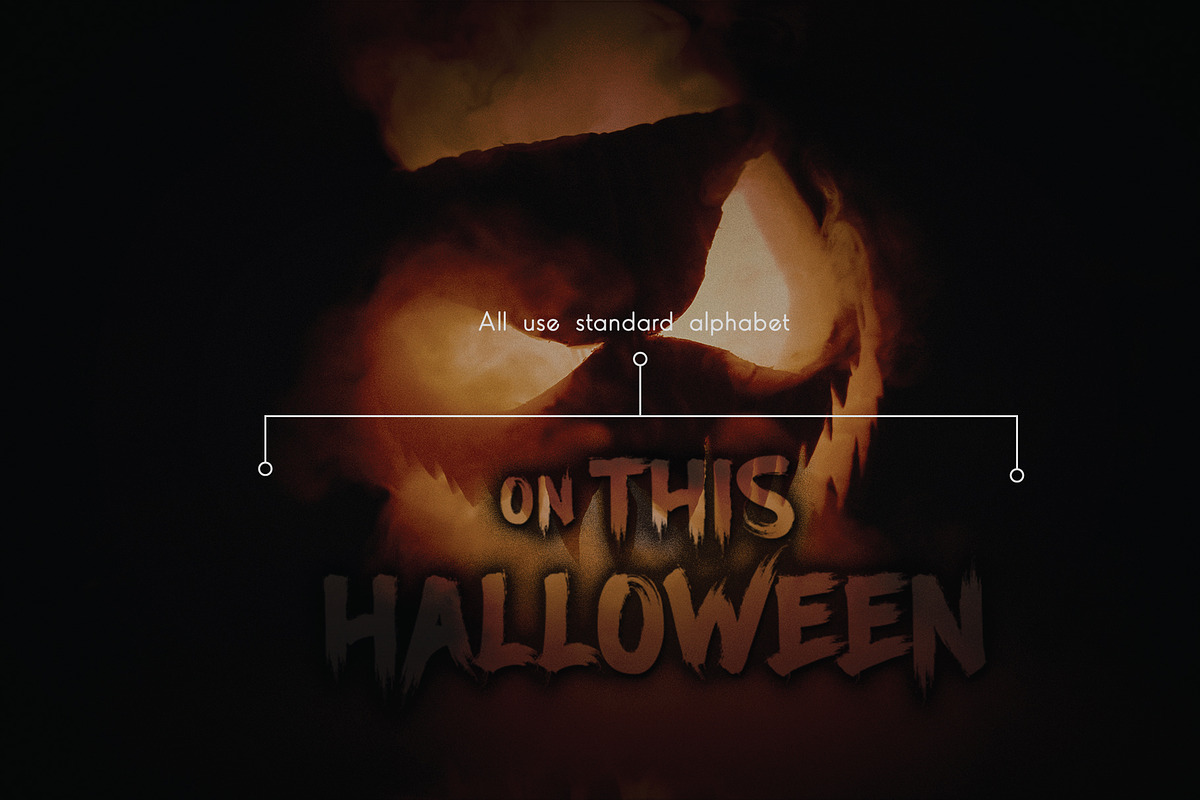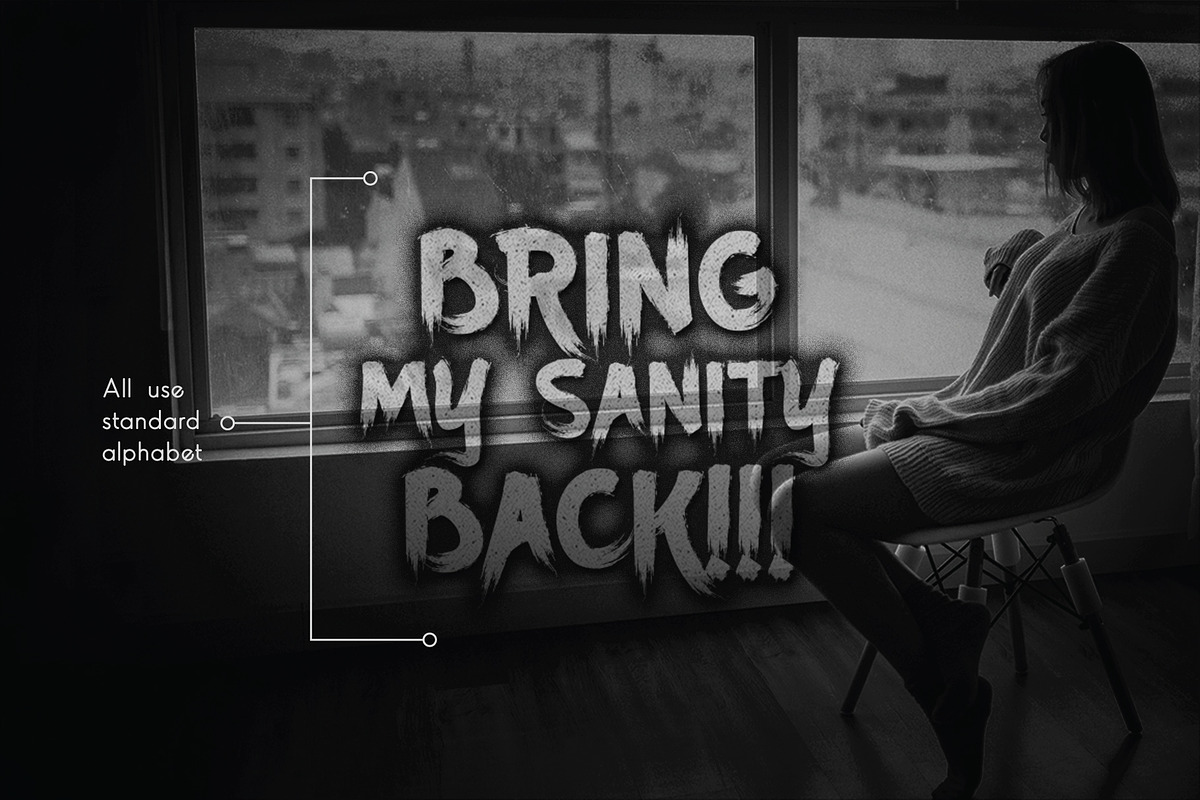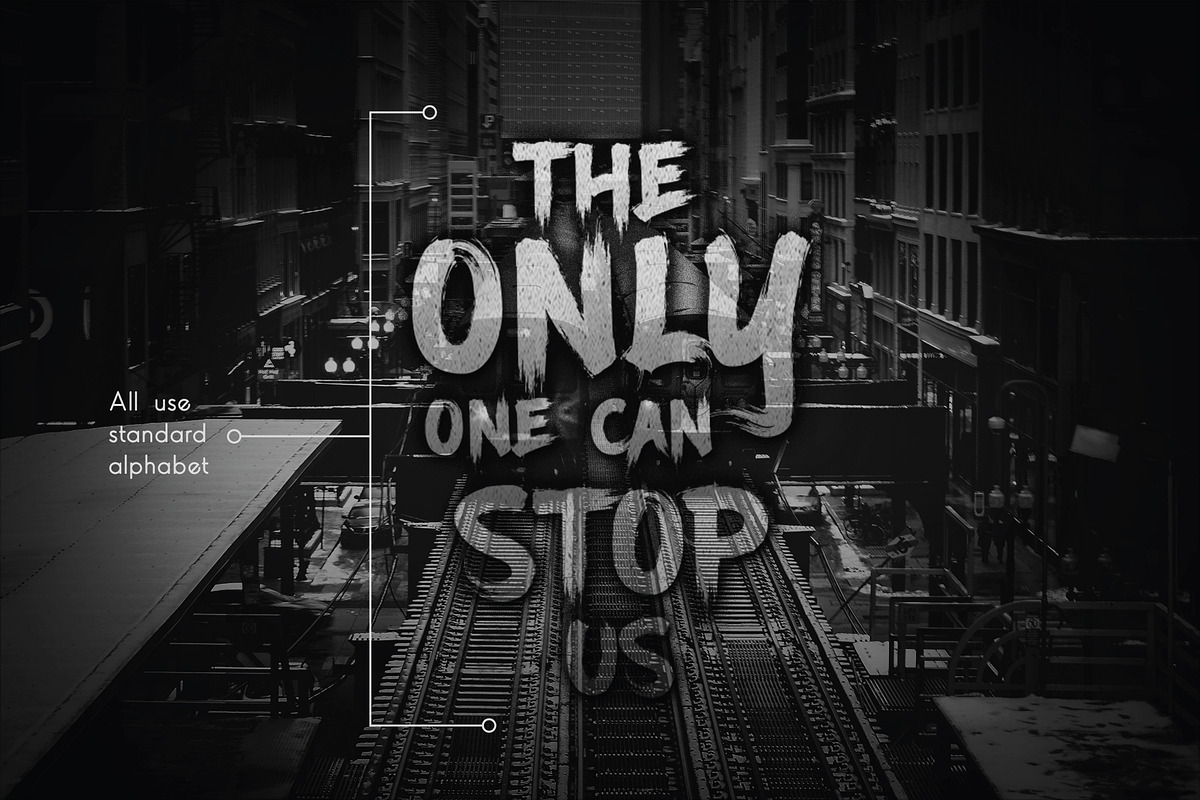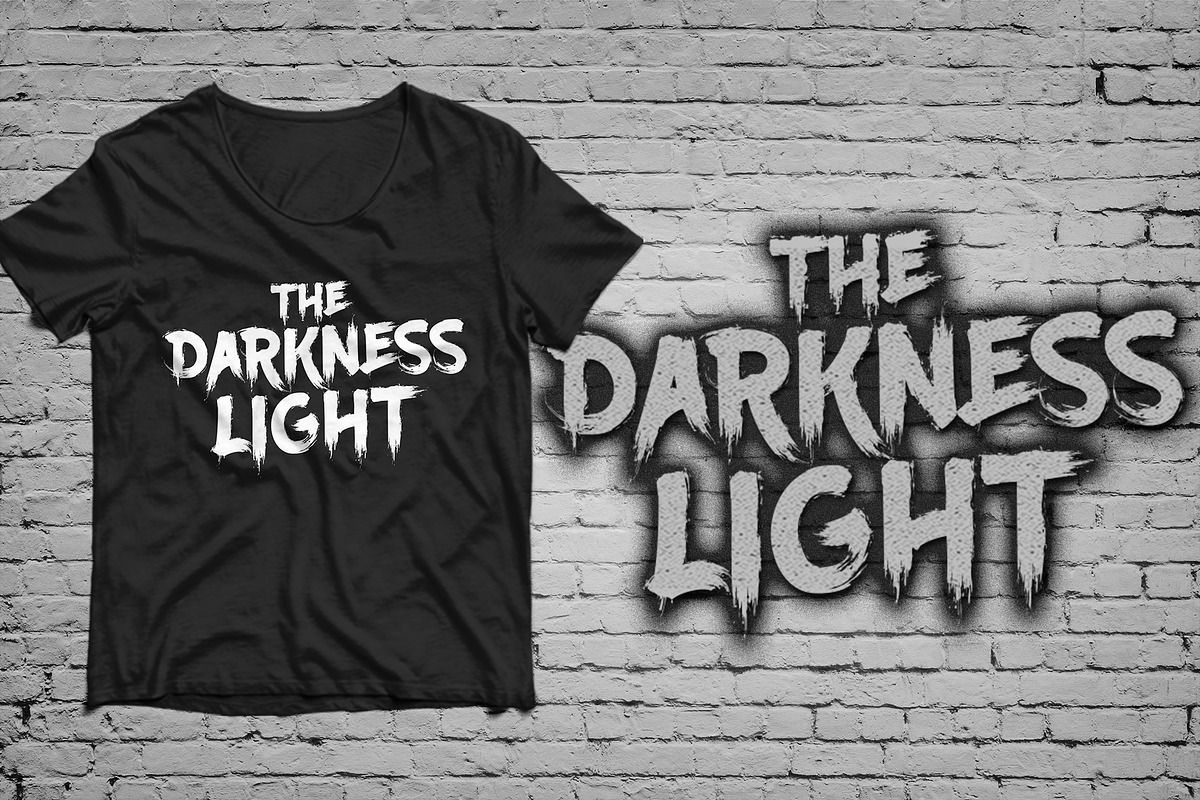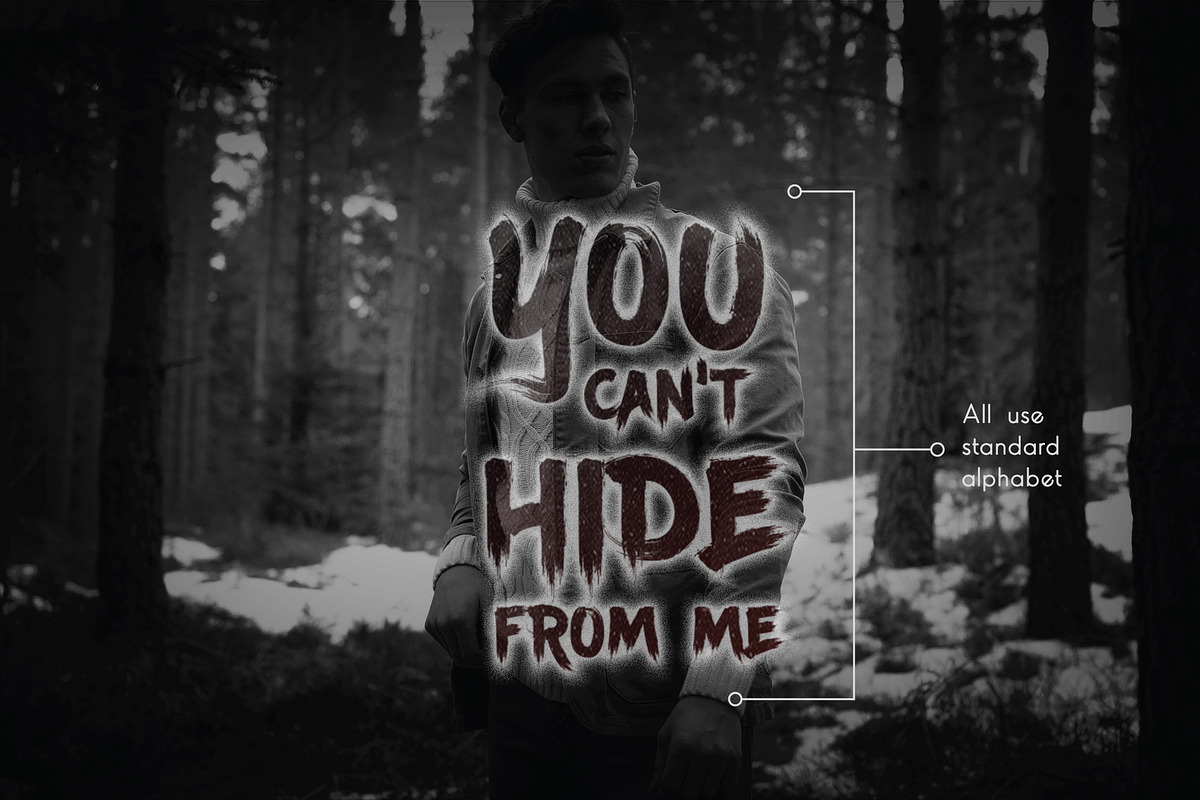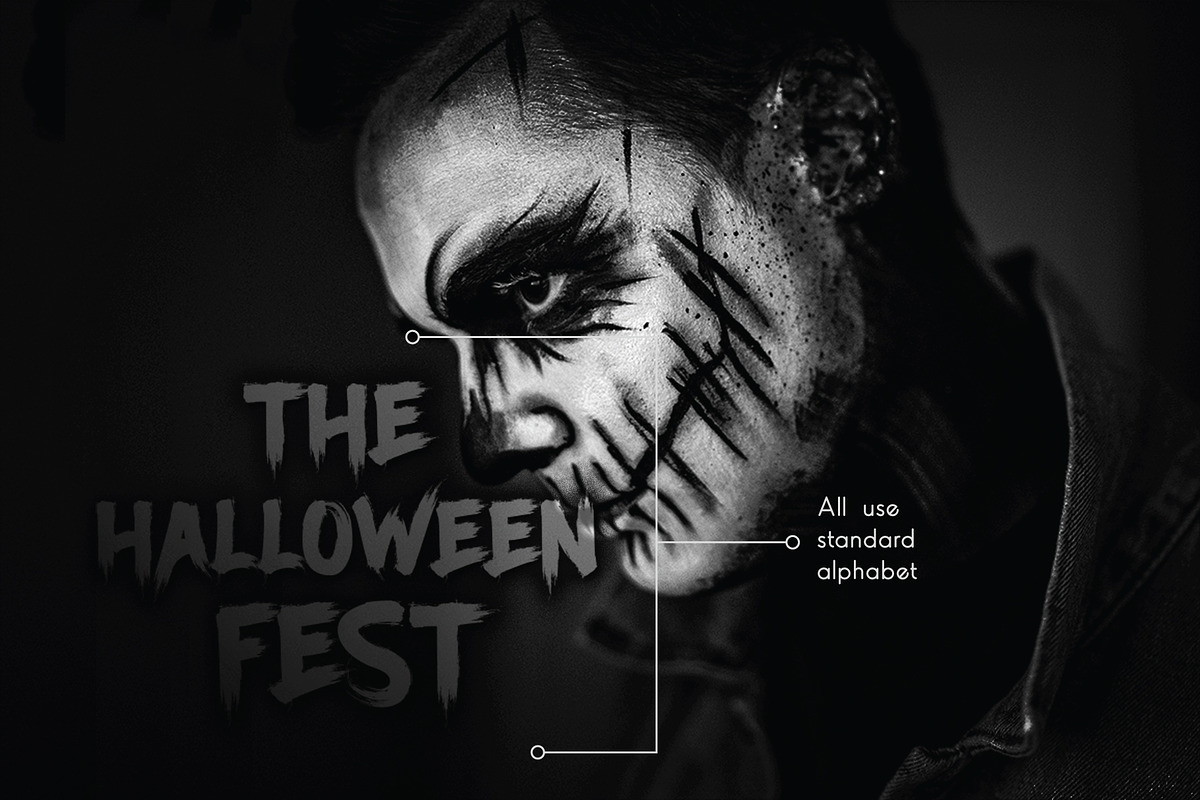
Ancherr Font
Ancherr is a horror brush typeface and you can use it for halloween poster or flyer. It includes multi-lingual and currency support, numerals, and punctuations.
This typeface can be put to many uses:
Ancherr typeface is suitable font for creating beautiful things and many creative work.
Ancherr Font by Vacatype Co. fits naturally into Branding, posters, packaging, typography.